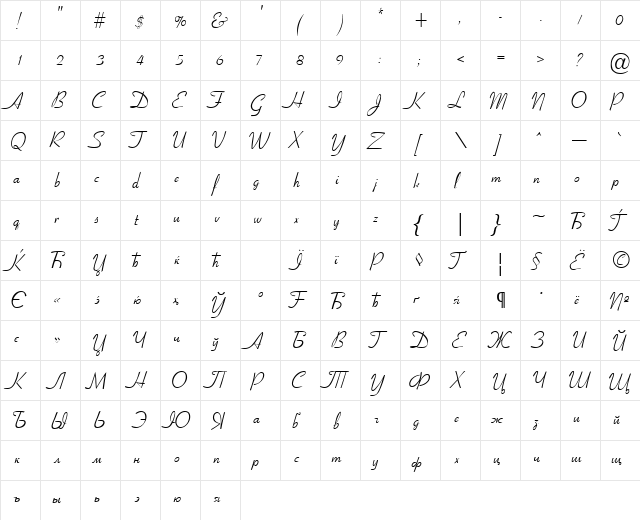
CyrillicRibbon Normal
Design Context for CyrillicRibbon Typeface
CyrillicRibbon is a composed and adaptable typeface that performs quietly and consistently across a wide range of design contexts.